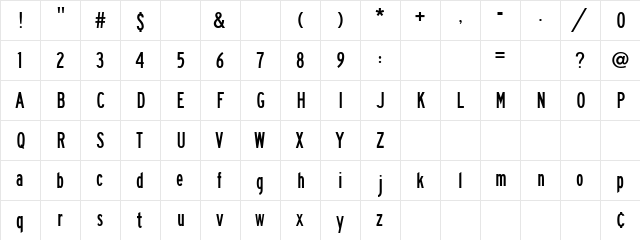
Roadgeek 2000 Series B Regular
Design Context for Roadgeek 2000 Series B Typeface
Roadgeek 2000 Series B takes a measured approach to typography — its balanced proportions and neutral character make it a reliable workhorse for both digital and print work.